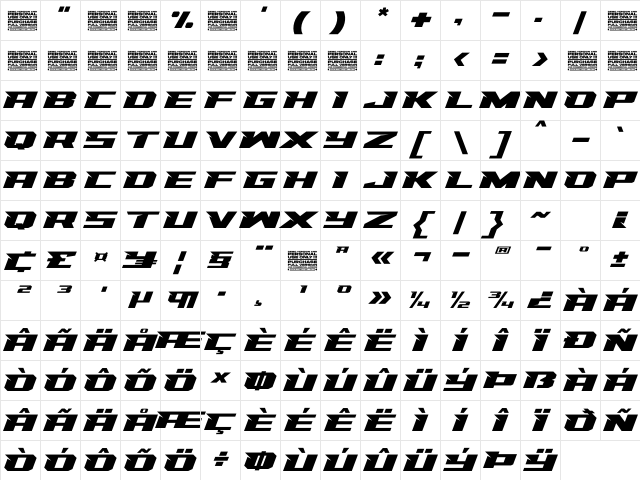
Racing Mega Race Regular Free Font
Racing Mega Race Regular
Foundry: Multype Studio
Designer: Mulia Yanto
Design Context for Racing Mega Race
Racing Mega Race is a composed and adaptable typeface that performs quietly and consistently across a wide range of design contexts.